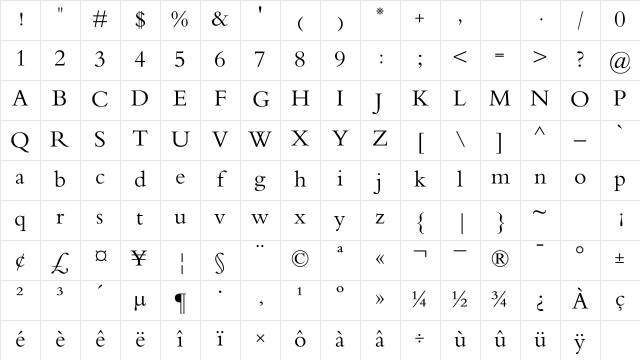
Al Qalam Quran Majeed 1 is a composed and adaptable typeface that performs quietly and consistently across a wide range of design contexts.
Pro Tip: Use Al Qalam Quran Majeed 1 in both headline and body roles to test its range before committing to a single application.
Who designed the Al Qalam Quran Majeed 1 Regular font?
This font was published by Abdul Majeed Khan. Check the technical specs section for copyright and designer details.